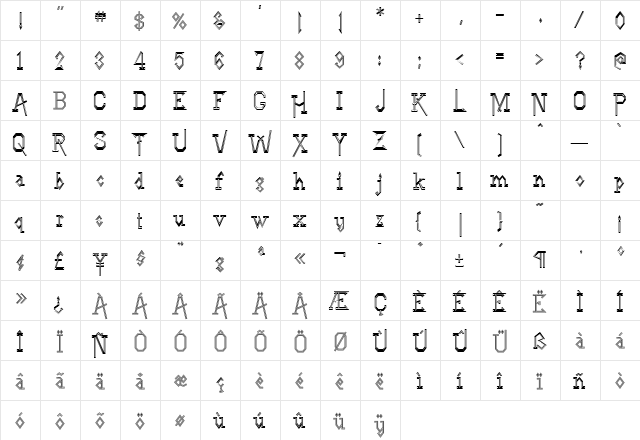
LineDriveOutlined Regular Font Preview
LineDriveOutlined Regular
LineDriveOutlined Regular Font Details
Design Context for LineDriveOutlined Typeface
LineDriveOutlined brings ornamental detail and strong personality to headlines and identities, where visual impact matters more than quiet functionality.
Font Pairing: Pair with a clean neutral sans-serif for body copy to let LineDriveOutlined's character lead without overwhelming the composition.
Pro Tip: Treat LineDriveOutlined as the centrepiece of your typographic hierarchy. One strong heading set in a decorative face can carry an entire layout.